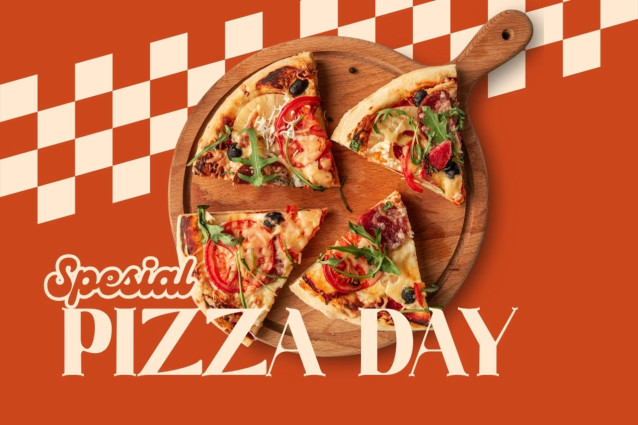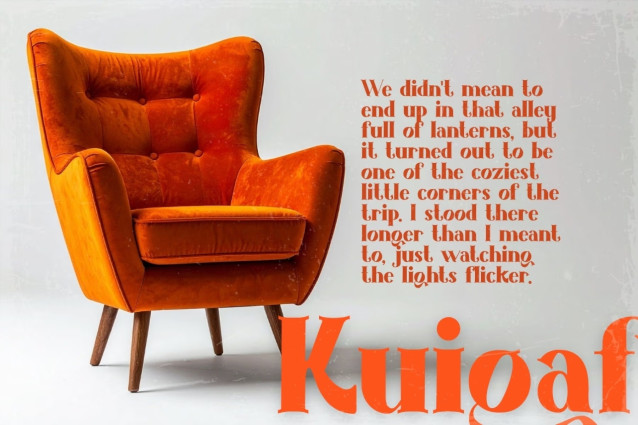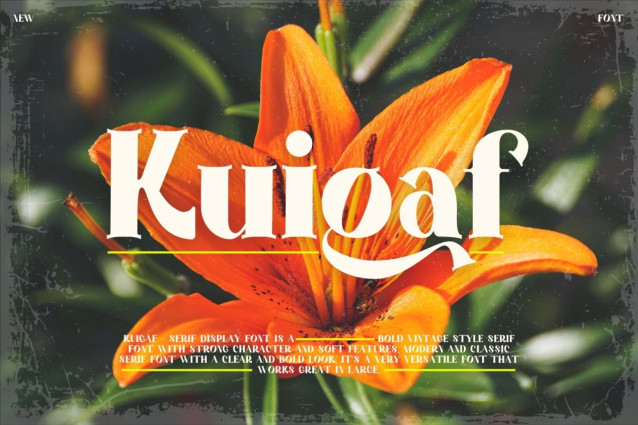
Kuigaf – Serif Display Font is a Bold vintage style serif font with strong character and soft features. modern and classic serif font with a clear and bold look. It’s a very versatile font that works great in large.
Kuigaf was built with stylistic Ligature makes your project will be awesome! Perfect for editorial projects, Logo design, web font, clothing branding, product packaging, magazine headers, or simply as a stylish text overlay to any background image.
**FEATURES**
– Uppercase and Lowercase letters
– Ligature
– Numbering and Punctuations
– Multilingual Supports